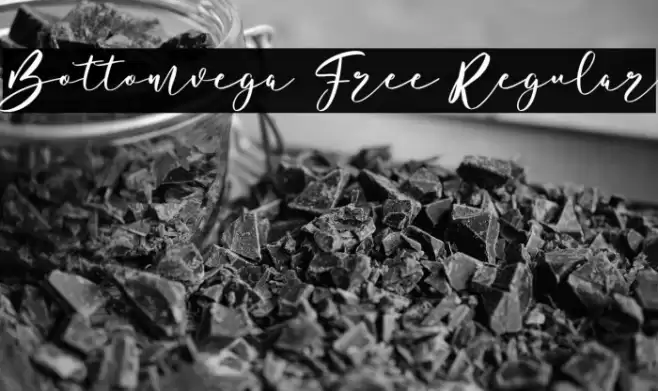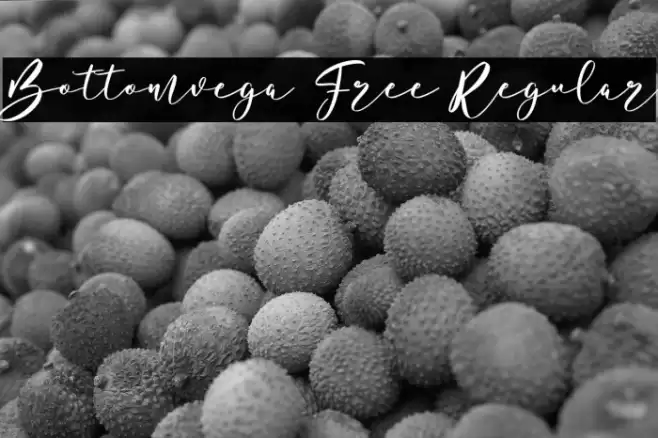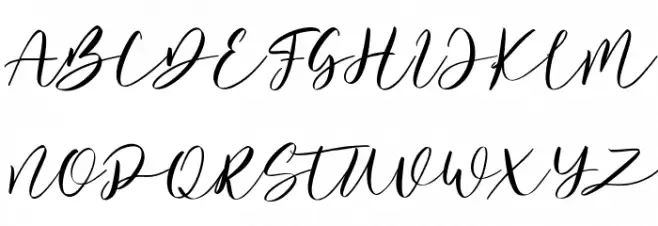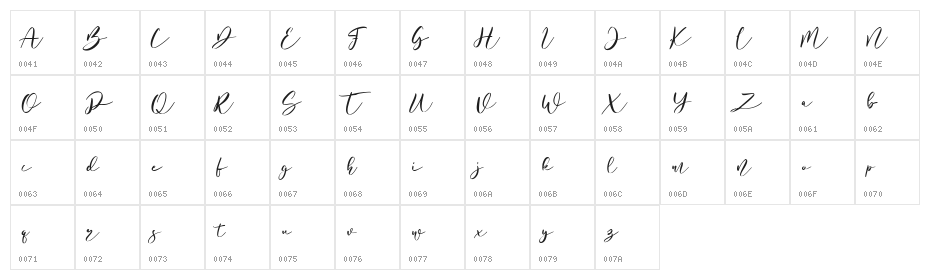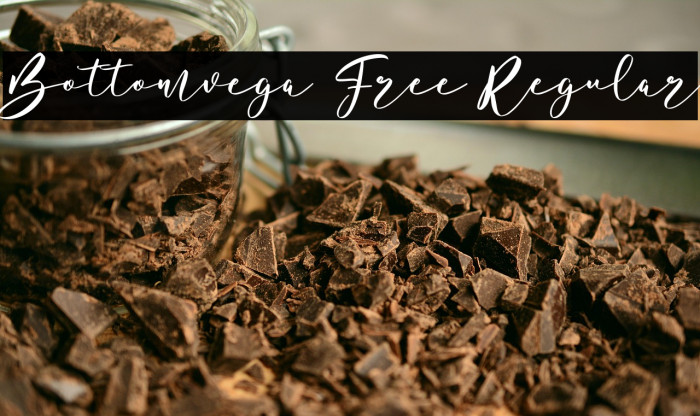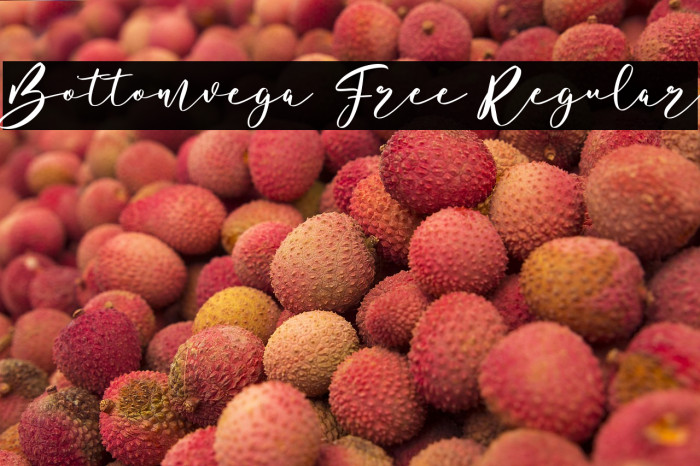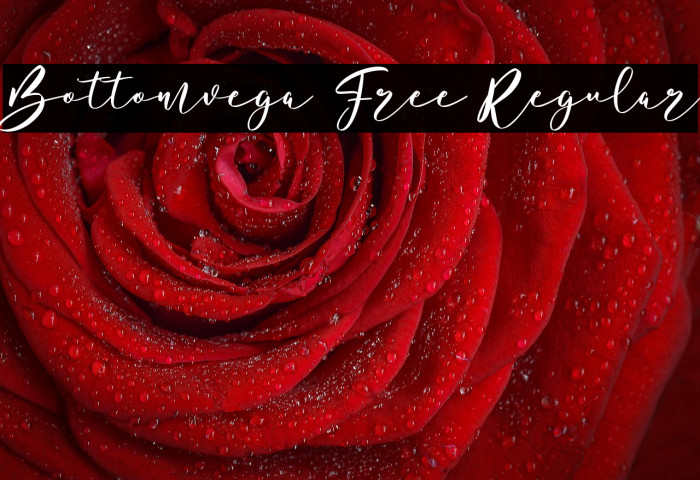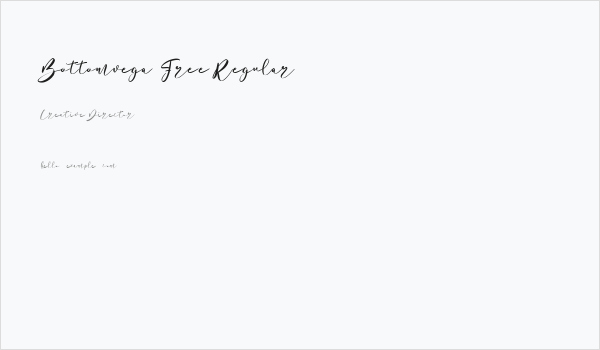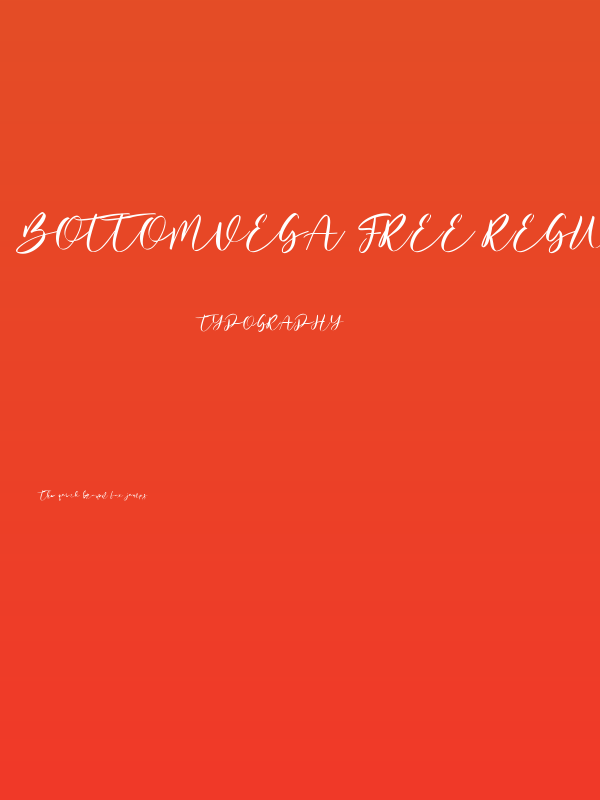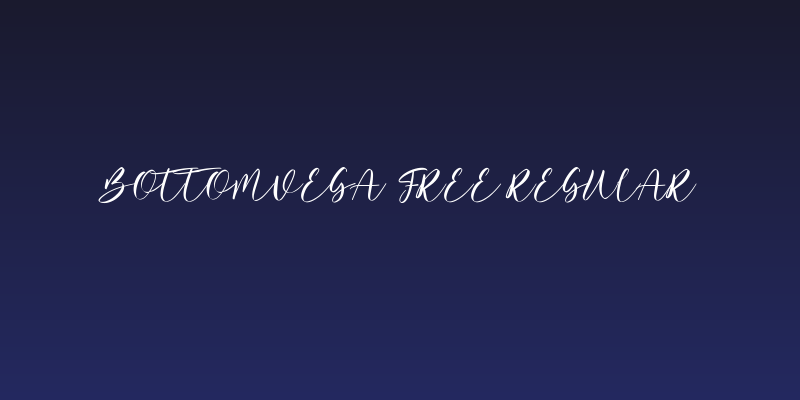
Bottomvega Free Regular Font
Bottomvega Free Regular Description
This font features an elegant and flowing script style, characterized by its smooth, cursive strokes and graceful curves. The uppercase letters are bold and sweeping, with a distinctive flair that adds a touch of sophistication. The lowercase letters maintain a consistent flow, enhancing readability while preserving the font's artistic nature. The numbers and special characters are crafted with the same attention to detail, ensuring a cohesive look across all text elements. This font is ideal for projects that require a personal, handwritten touch, such as invitations, greeting cards, and branding materials.
An elegant, flowing script font with smooth, cursive strokes from Regular fonts.
- Proposed Projects: Ideal for wedding invitations, greeting cards, branding, and elegant logos.
- Overall Style: Elegant, Artistic
- Use Case: Headlines, Invitations, Branding